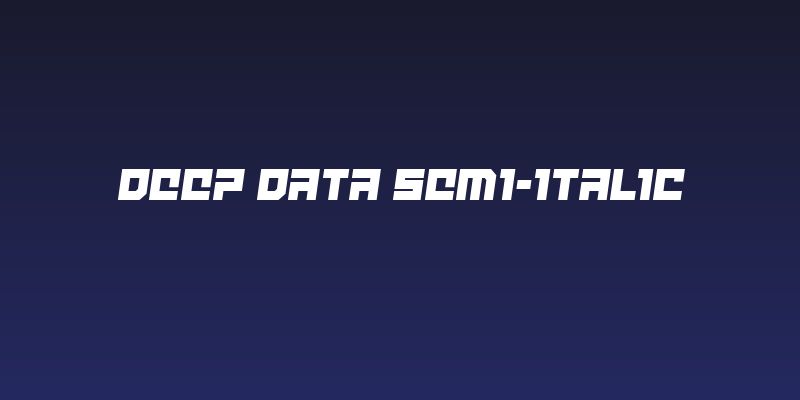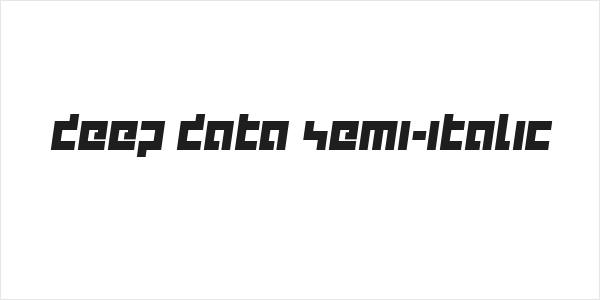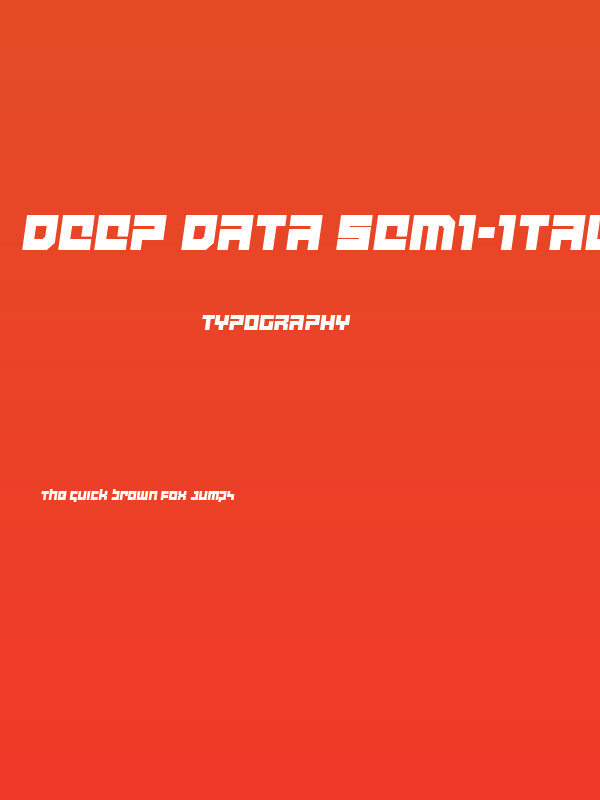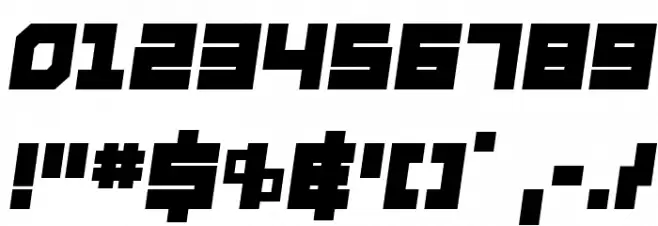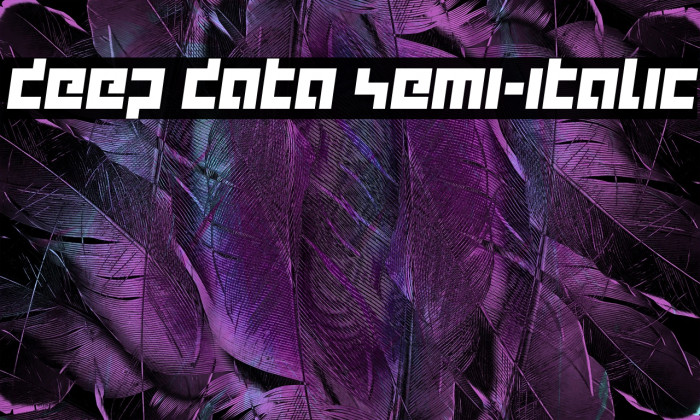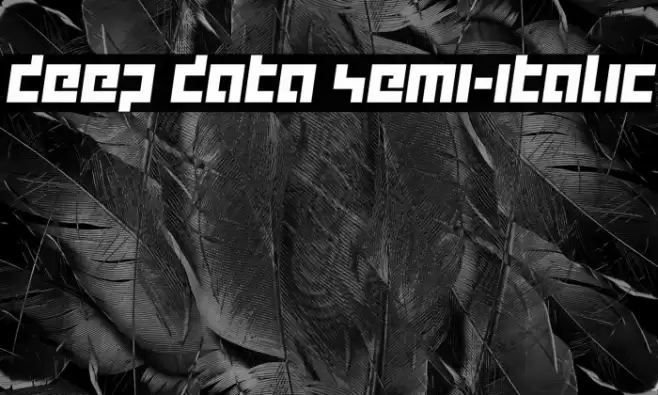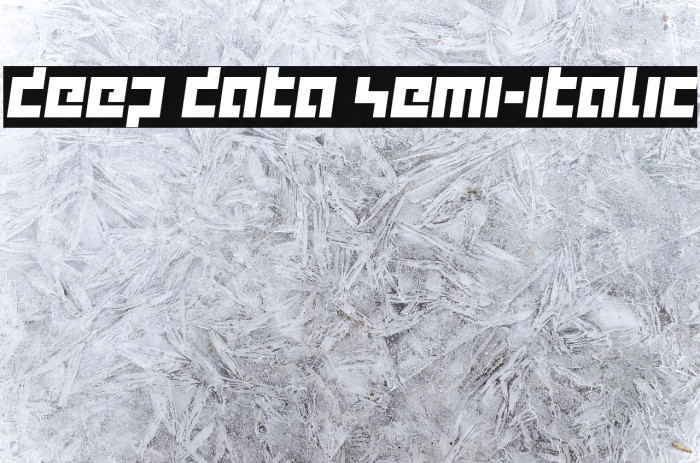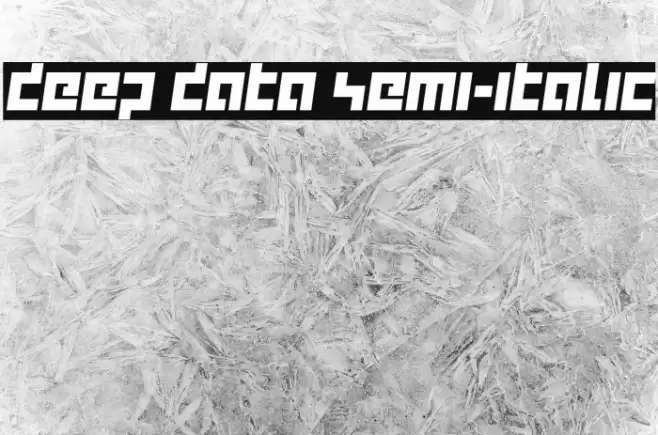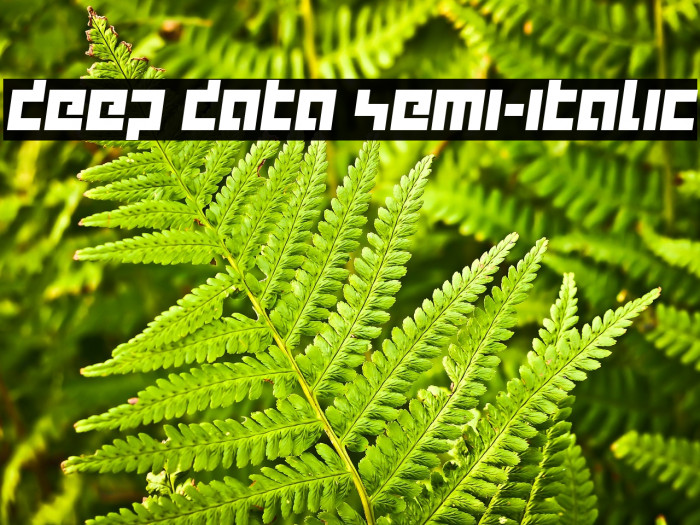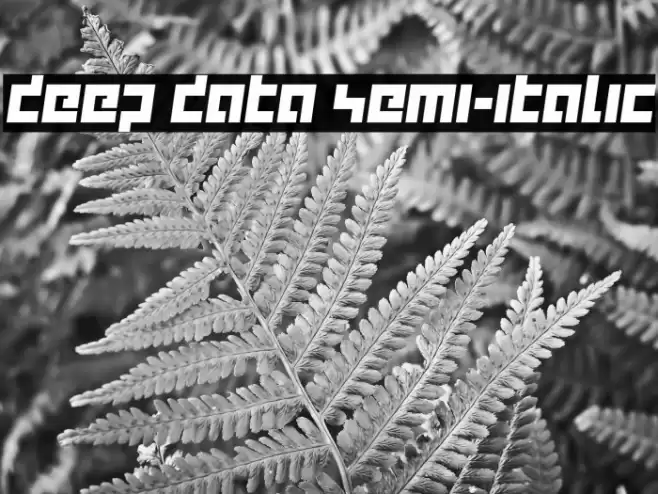
deep data semi-italic Font
deep data semi-italic Description
This font features a bold, angular design with a futuristic and geometric aesthetic. The characters are constructed with sharp, block-like forms that convey a sense of strength and modernity. The uppercase and lowercase letters maintain a consistent style, with the lowercase slightly smaller but equally bold. Numbers and special characters follow the same design principles, ensuring uniformity across all glyphs. The font's semi-italic slant adds a dynamic feel, enhancing its contemporary look. Its distinct style makes it suitable for projects requiring a strong visual impact.
| Use Case | Headlines, Logos |
| Proposed Projects | Ideal for tech-related branding, video game titles, sci-fi movie posters, and modern digital interfaces. |